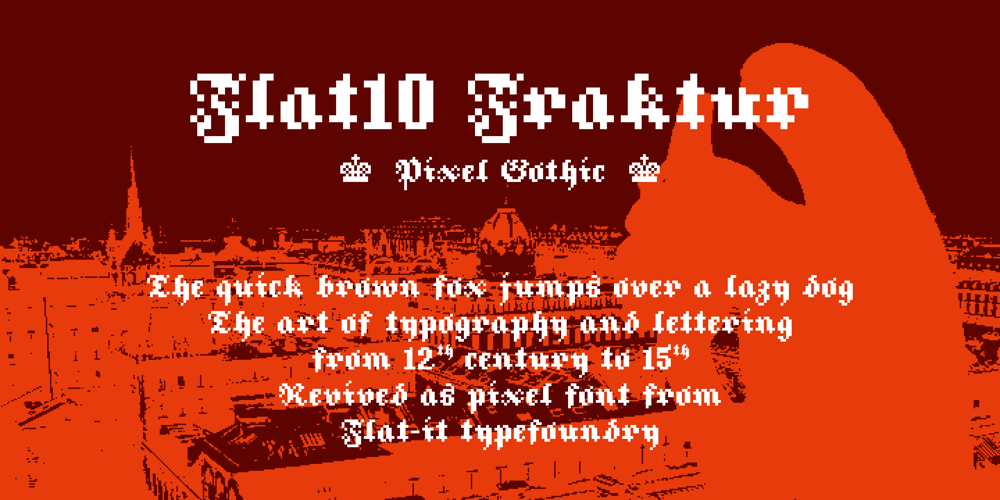
Flat10 Fraktur
Flat10 Fraktur font
Flat10 Fraktur Font Family was designed by Ryoichi Tsunekawa and published by Dharma Type. Flat10 Fraktur contains 1 styles and family package options. The pixelated blackletter which called Fraktur, the most famous calligraphic letter in Germany. This 8-bit pixel font is designed with respect for 80s game designers and the pixel font pioneers in middle 90s. Use at size 10 pixels or multiples of 10 and anti-alias off is recommended. List of our Pixel Font Project. ·Flat10 Antique ·Flat10 Artdeco ·Flat10 Arts&Crafts ·Flat10 fraktur ·Flat10 Holy ·Flat10 Holly ·Flat10 Segments ·Flat10 Stencil ·Flat20 Gothic ·Flat20 Headline ·Flat20 Hippies ·Flat20 Streamer ·Behrensmeyer Vigesimals ·Civilite Vigesimals